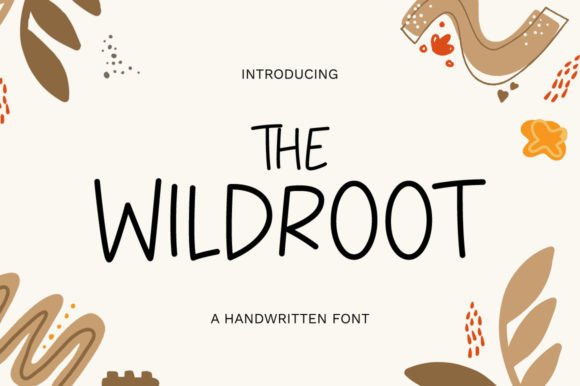
Welcome to the world of The Wildroot Font, a whimsical and charming script font that will transport your creative projects to a world of wonder and imagination. With its playful and authentic handwritten style, The Wildroot Font is the perfect choice for adding a touch of whimsy and personality to your designs.
Imagine the delight of your audience as they encounter your chalkboard quotes, teaching materials, and other creations adorned with The Wildroot Font. Its simple yet expressive letterforms dance across the page, capturing attention and sparking joy with every stroke.
Unleash your creativity and let The Wildroot Font guide you on a journey of storytelling and artistic expression. Create enchanting invitations for special occasions, design eye-catching social media graphics, or add a touch of magic to your blog posts and website content. The possibilities are endless, and the results are sure to captivate and inspire.
Immerse yourself in the world of The Wildroot Font and discover the endless possibilities it holds for your creative endeavors. Let your imagination soar as you bring your designs to life with this captivating script font.